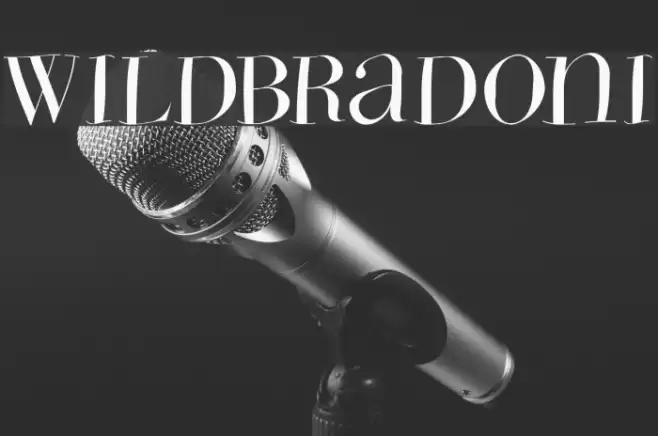
WildBradoni Font
WildBradoni Description
This font features a unique blend of elegance and modernity, characterized by its high contrast between thick and thin strokes. The uppercase letters exhibit a stylish flair with distinct curves and sharp serifs, while the lowercase letters maintain a consistent flow with a slightly more subdued appearance. The numerals are bold and dynamic, adding a sense of movement and energy. Special characters are crafted with the same attention to detail, ensuring a cohesive look across all glyphs. The overall design is both sophisticated and playful, making it suitable for a variety of creative applications.
A high-contrast, elegant font with sharp serifs and dynamic curves from Uncategorized fonts.
- Proposed Projects: Ideal for branding, editorial design, luxury packaging, and artistic posters.